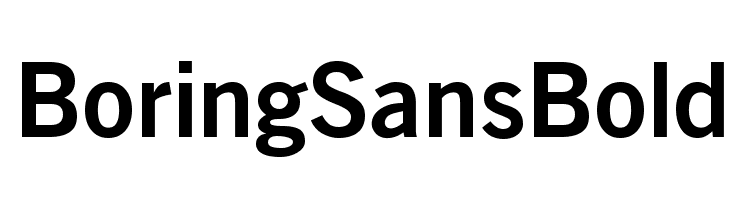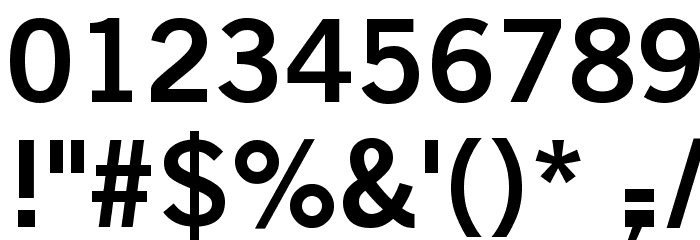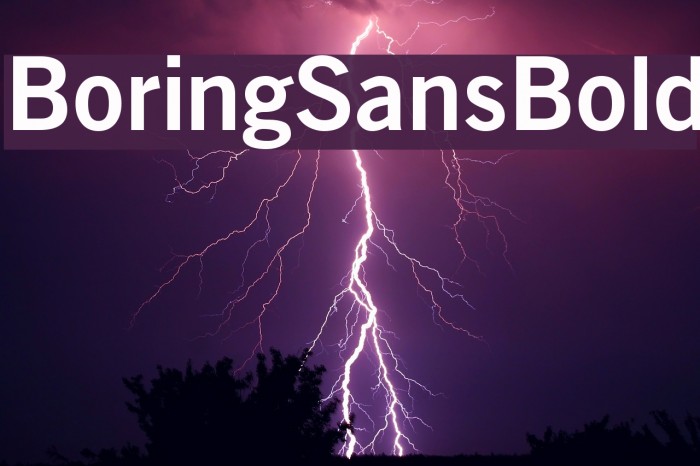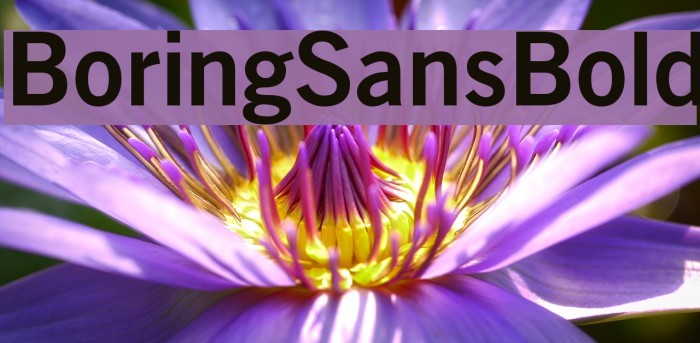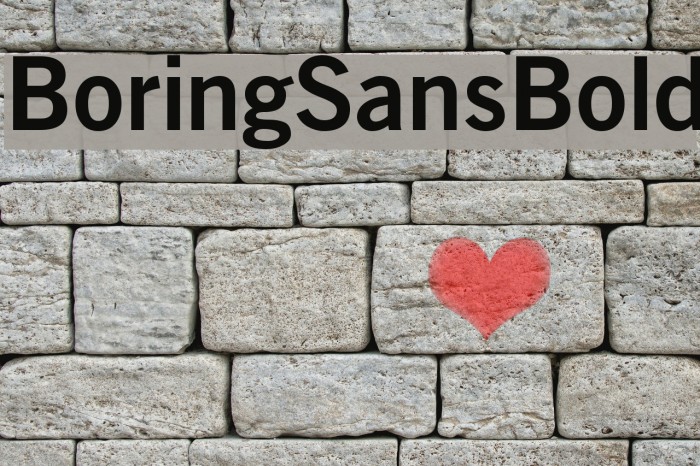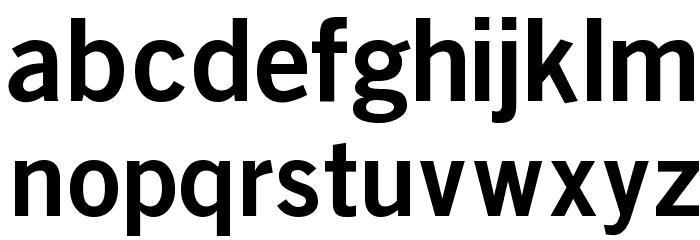
BoringSansBold Font
BoringSansBold Description
This font exhibits a clean and modern sans-serif style with bold, uniform strokes. The characters are well-defined with a consistent weight throughout, contributing to its readability and clarity. The uppercase and lowercase letters maintain a balanced proportion, while the numerals and special characters are designed to complement the overall aesthetic. The font's simplicity and straightforwardness make it versatile for various applications, ensuring it stands out without overwhelming the viewer.
A bold, modern sans-serif font with clean lines and excellent readability from Uncategorized fonts.
- Proposed Projects: Ideal for branding, advertising, headlines, and digital content where clarity and impact are essential.
- Use Case: Headlines, Logos, Digital content